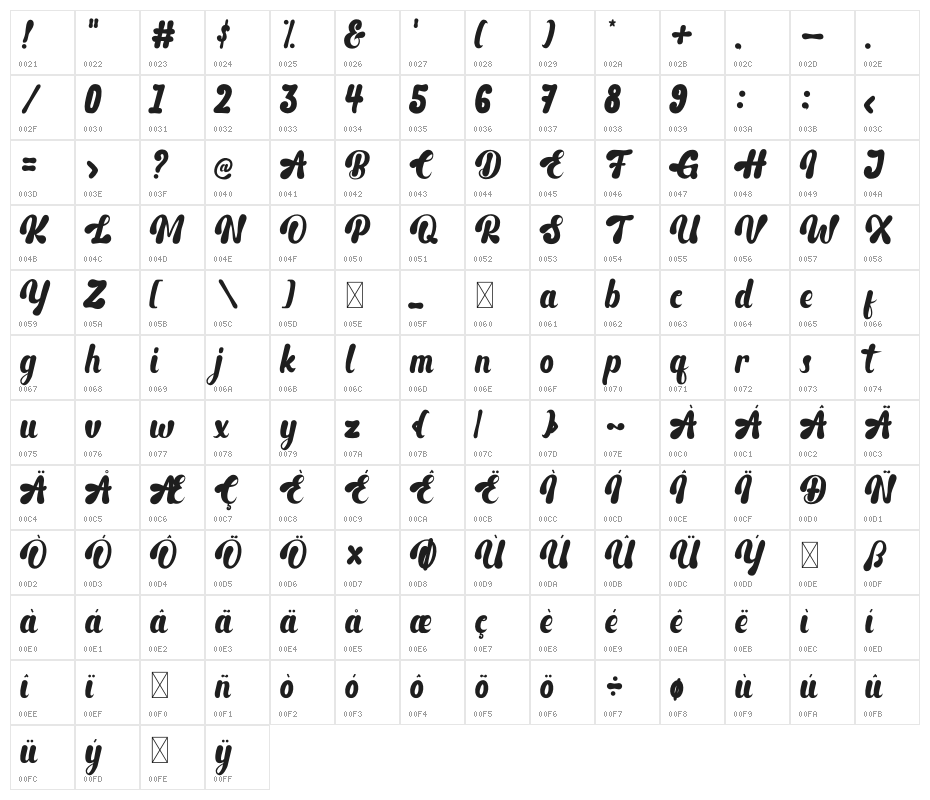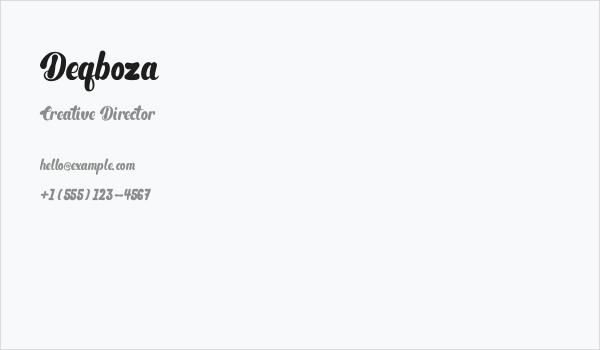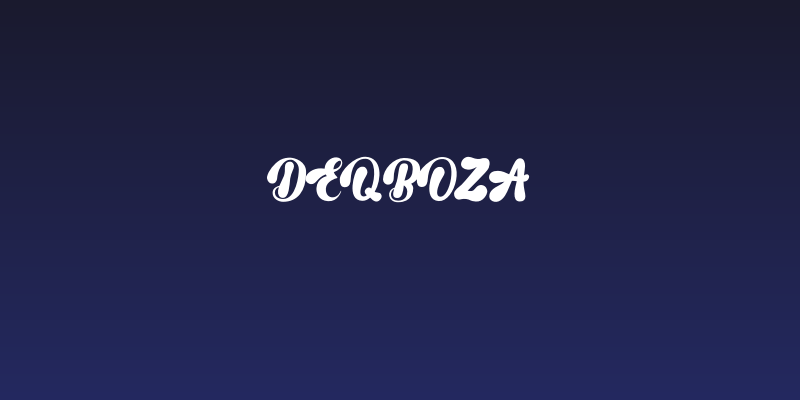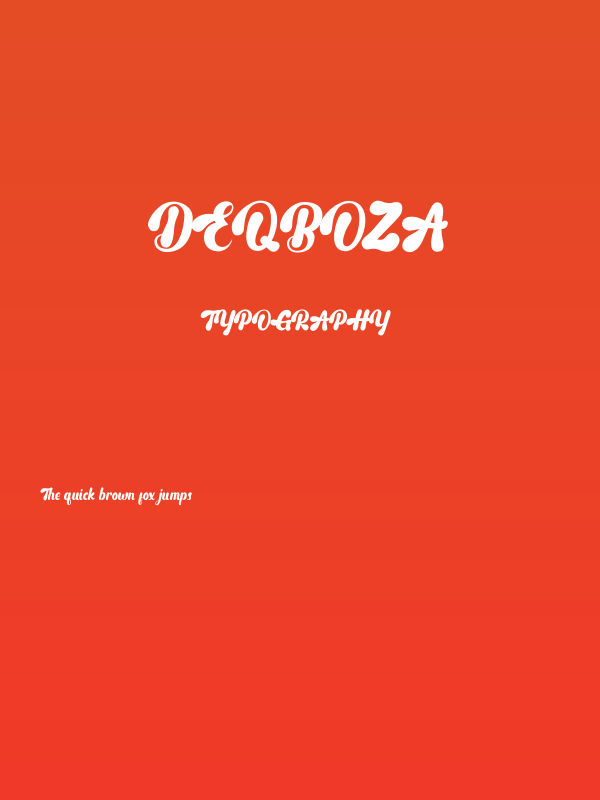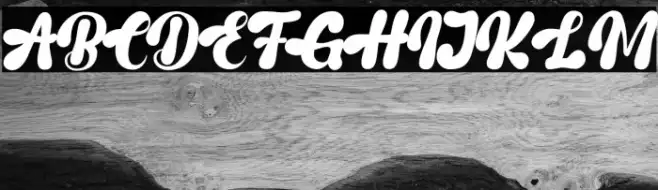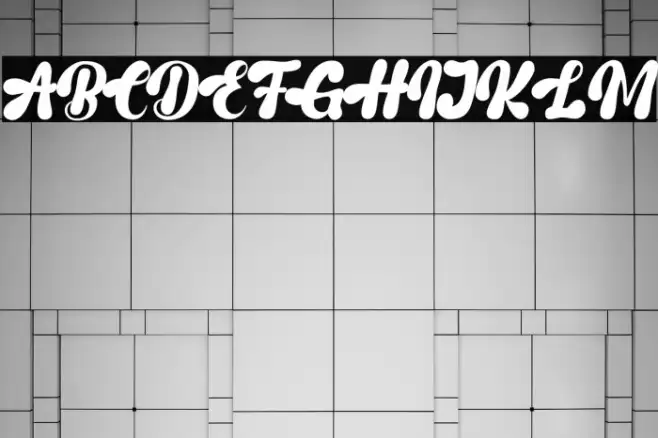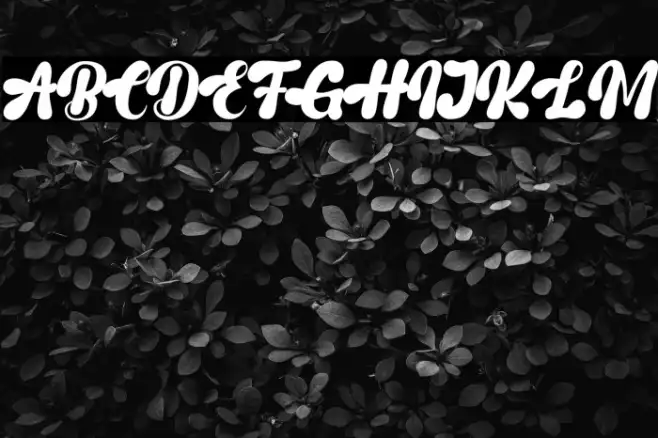
Deqboza Font
Deqboza Description
This font exhibits a bold, cursive style with a playful and dynamic character. The letters are connected, creating a flowing script that is both elegant and eye-catching. The uppercase letters maintain a consistent height, while the lowercase letters feature distinctive loops and curves, adding to the font's charm. The numbers are equally bold and maintain the same playful style, making them stand out. Special characters are designed to match the overall aesthetic, ensuring a cohesive look across all elements. This font is perfect for projects that require a touch of personality and flair.
| Proposed Projects | Ideal for branding, invitations, greeting cards, and playful headlines. |